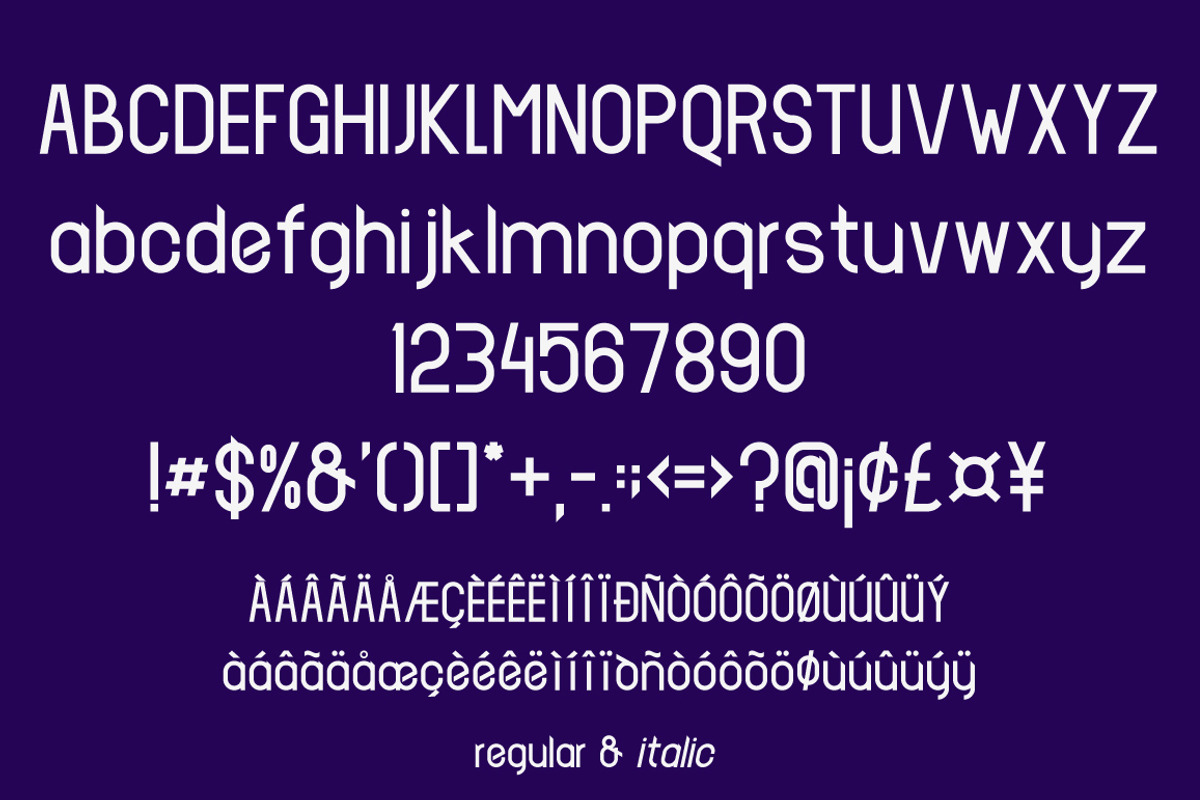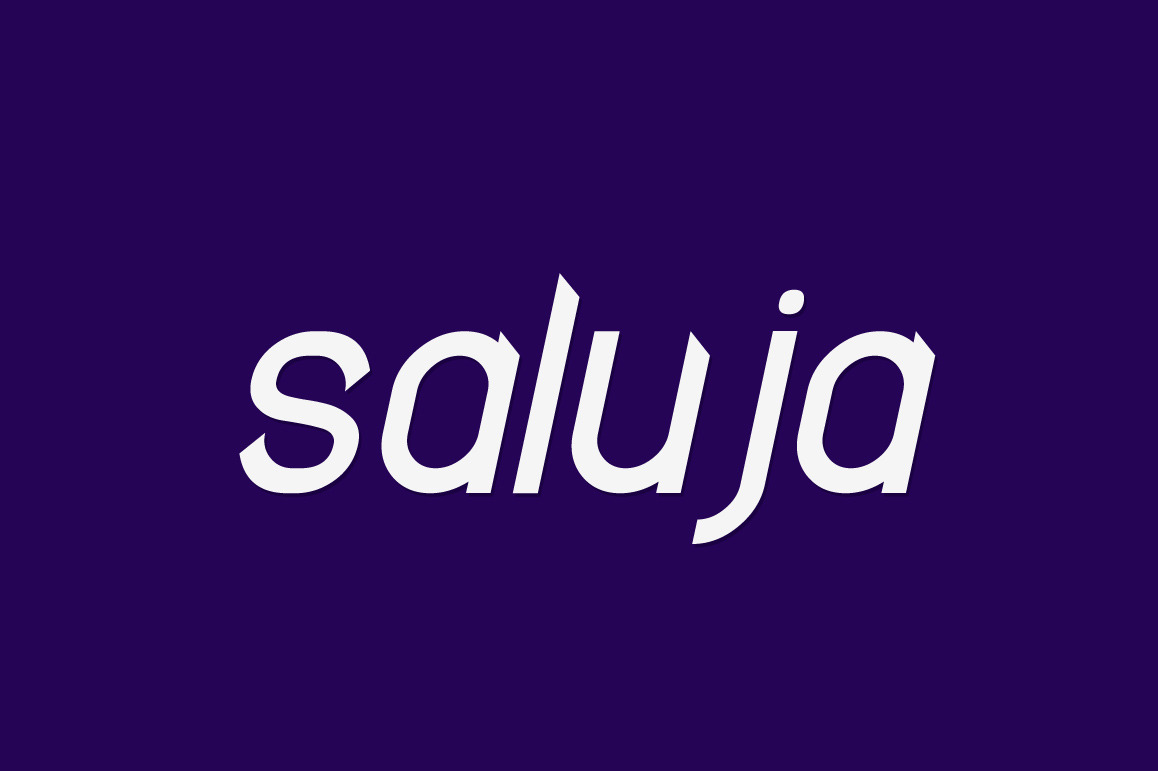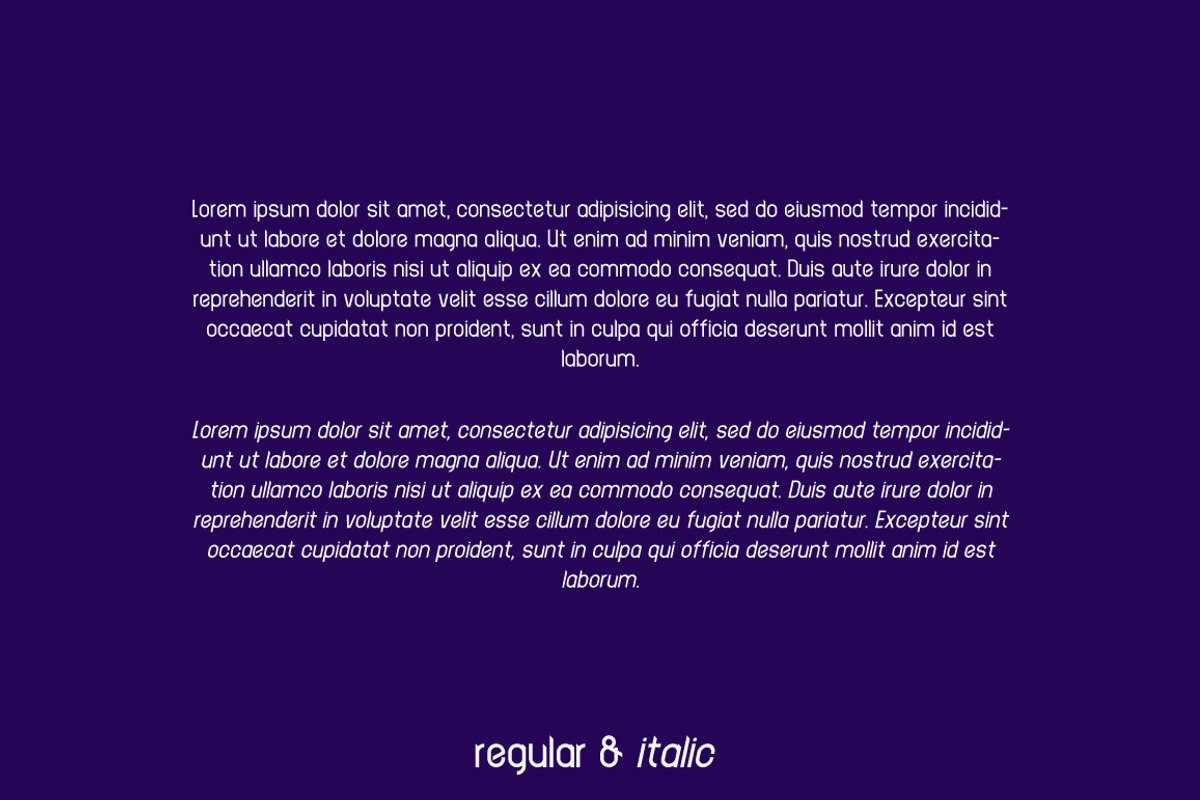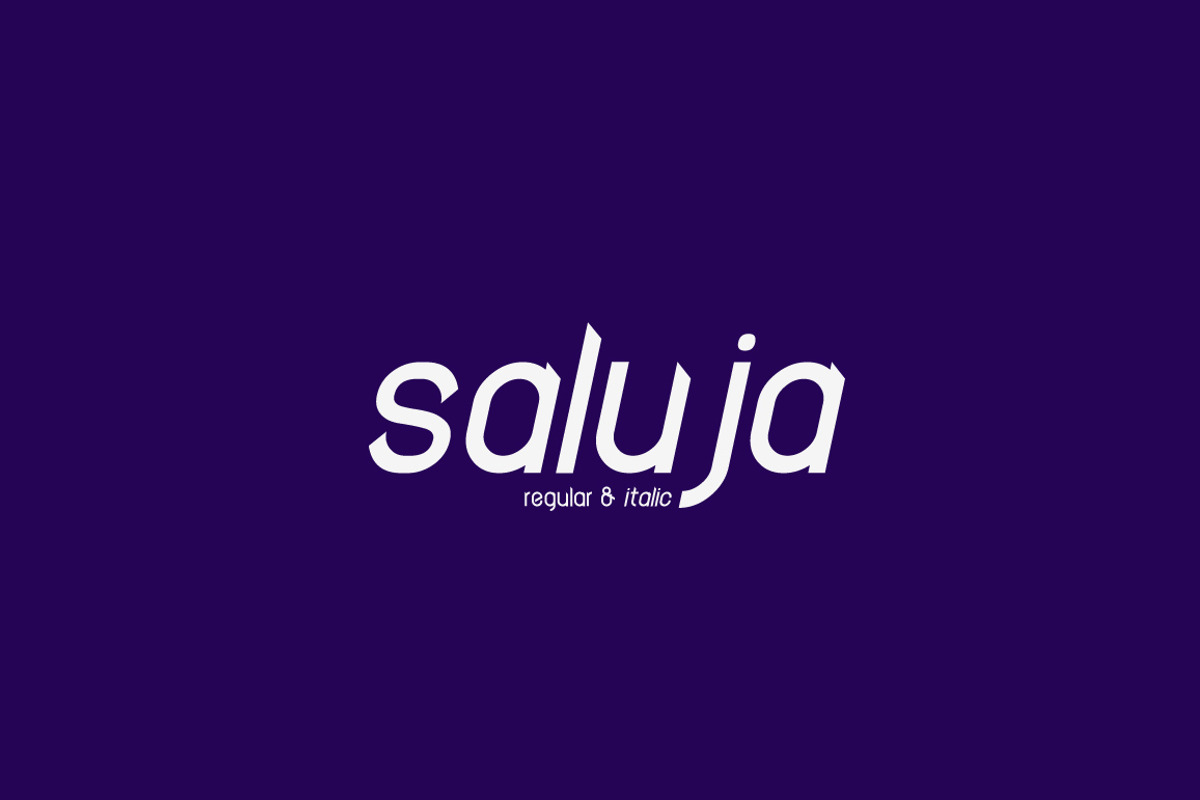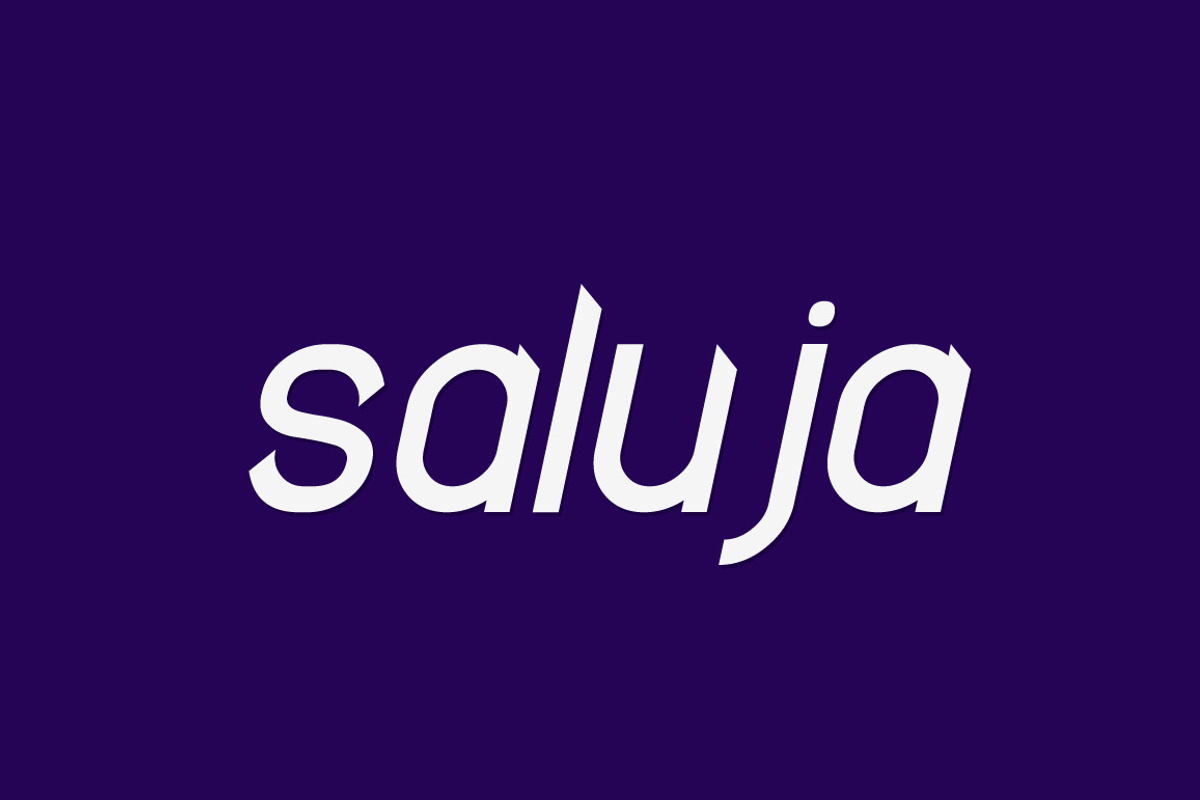
Saluja Typeface
Saluja is a modern geometric sans serif typeface. Available in regular, italic, semibold and semibold italic. Thank you for appreciate. Regards